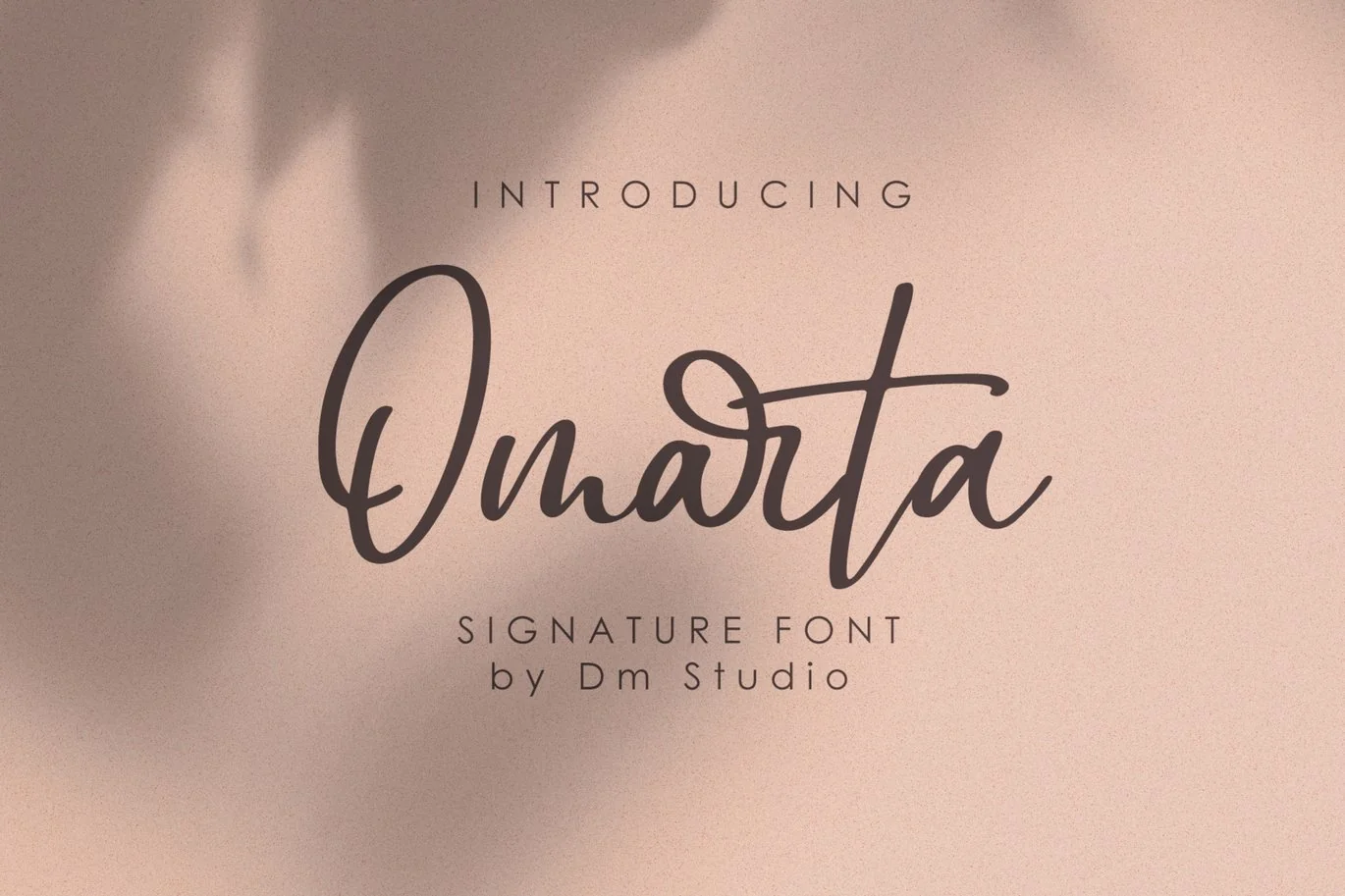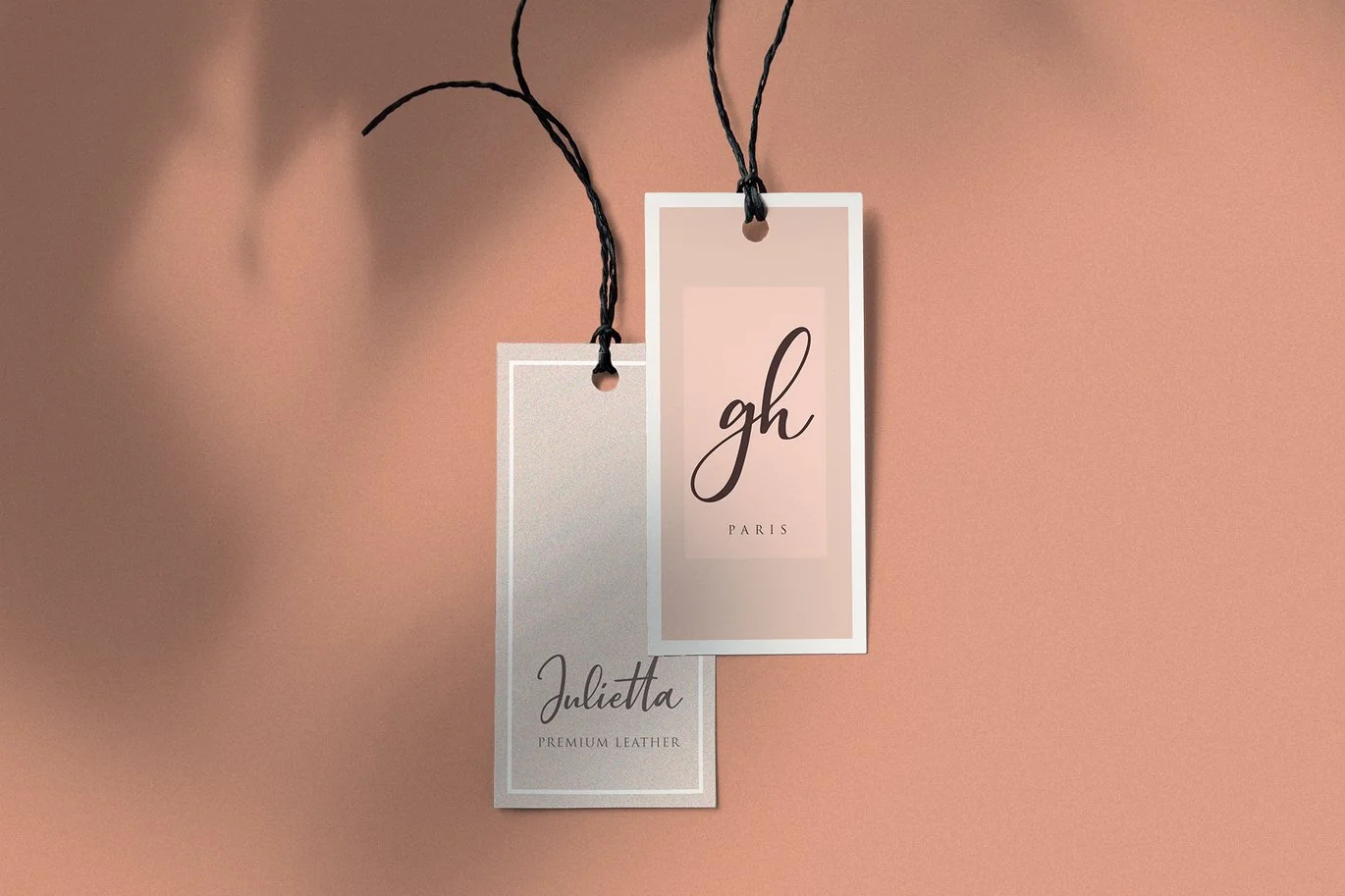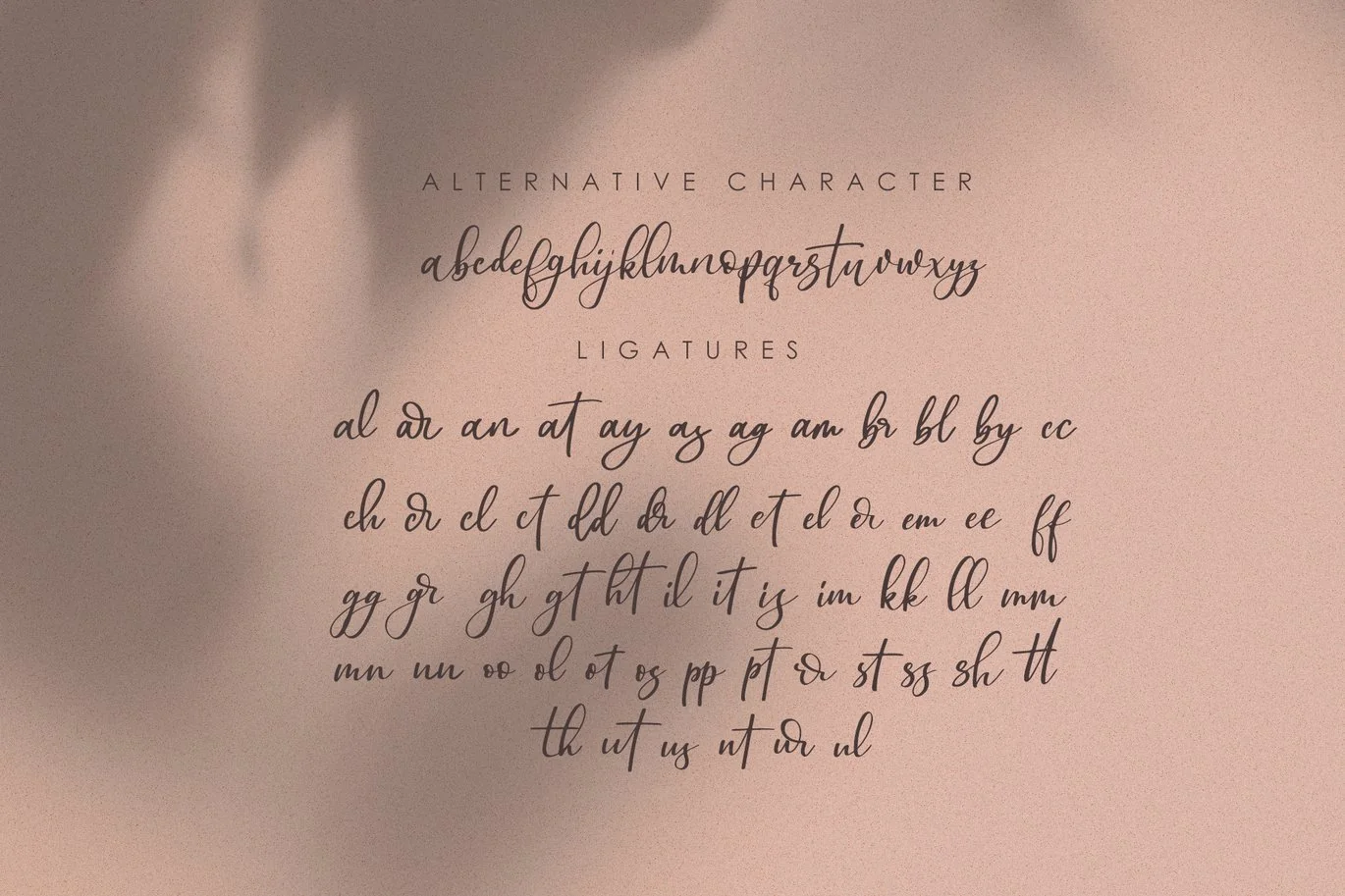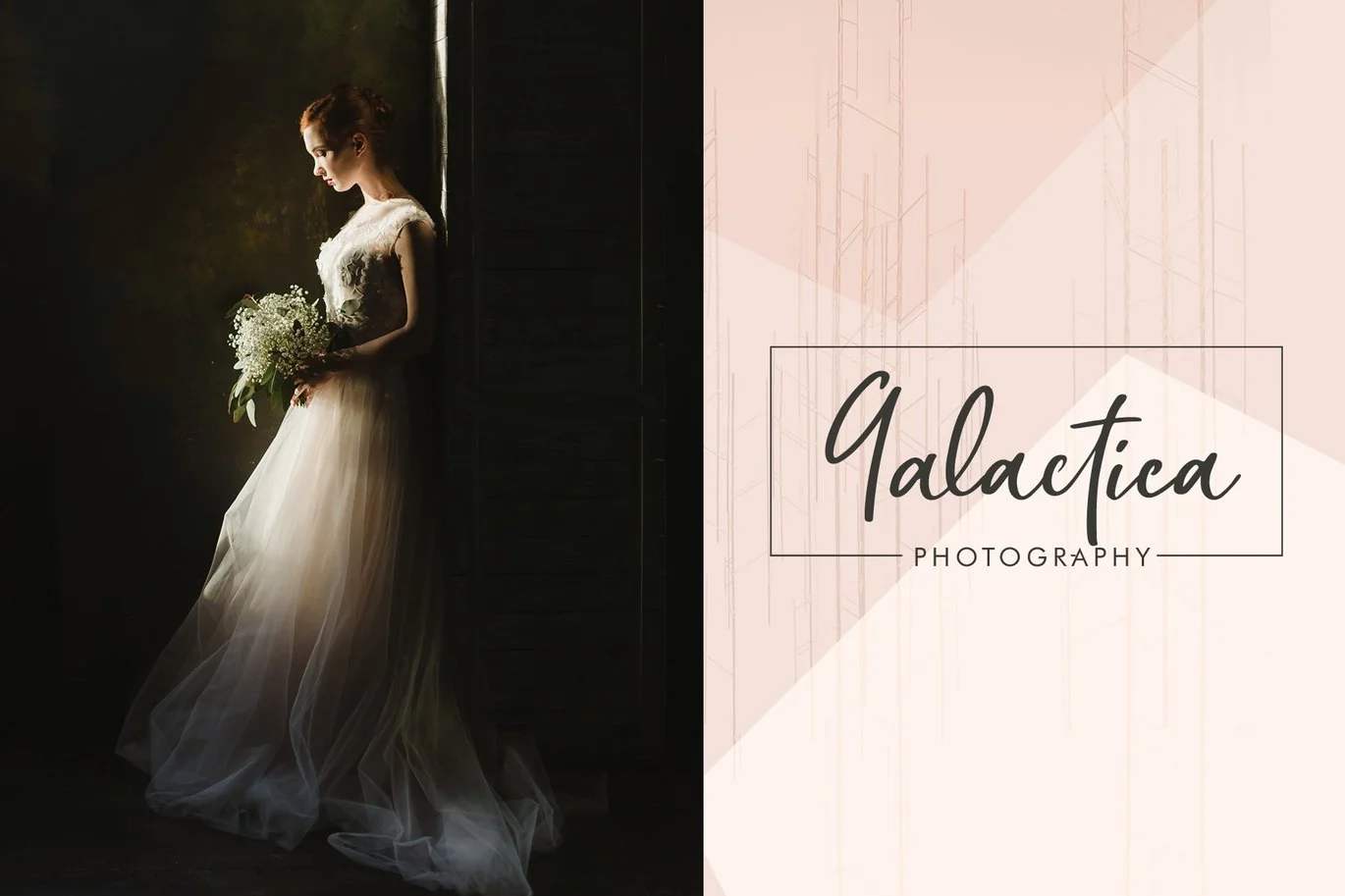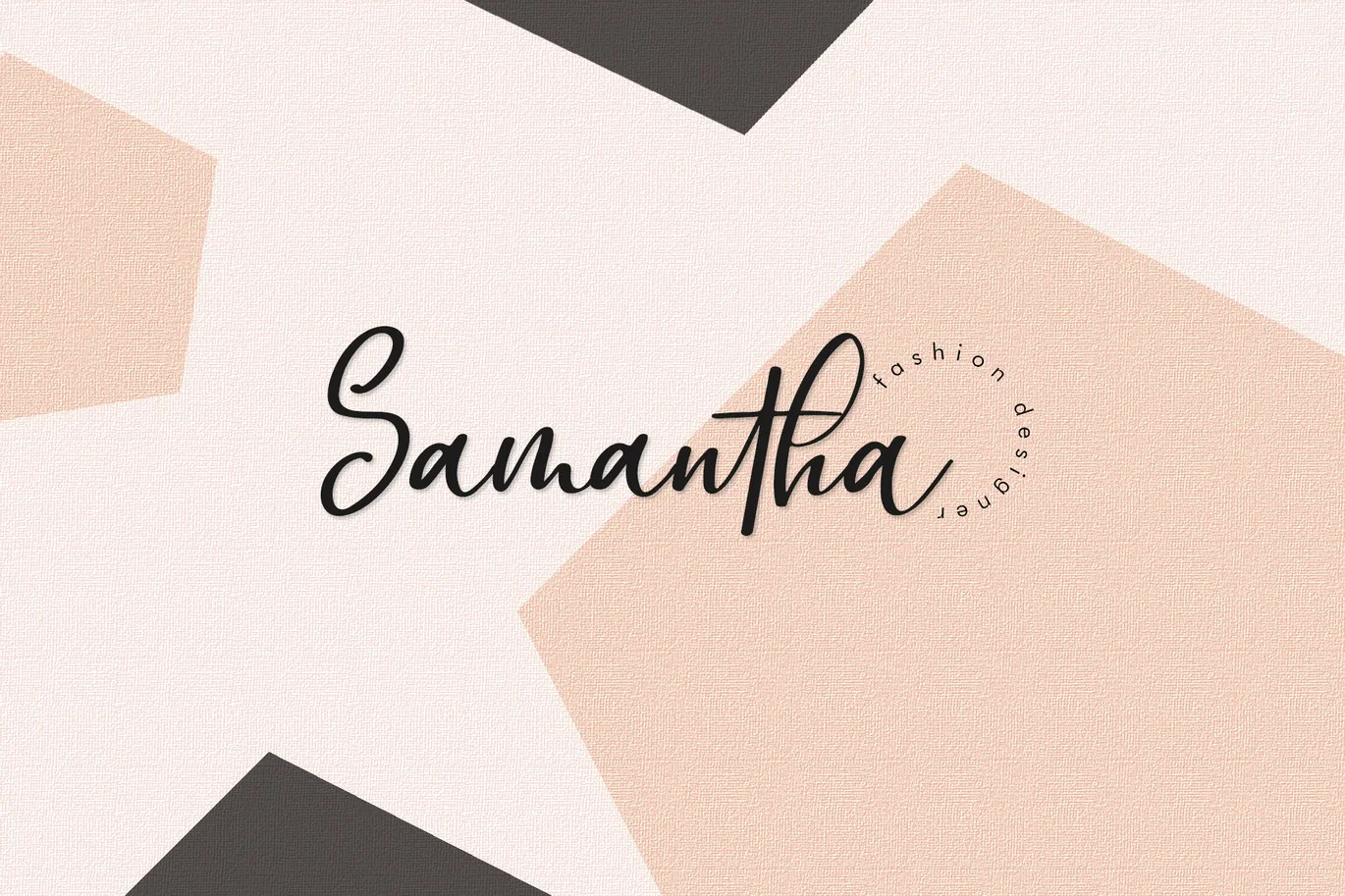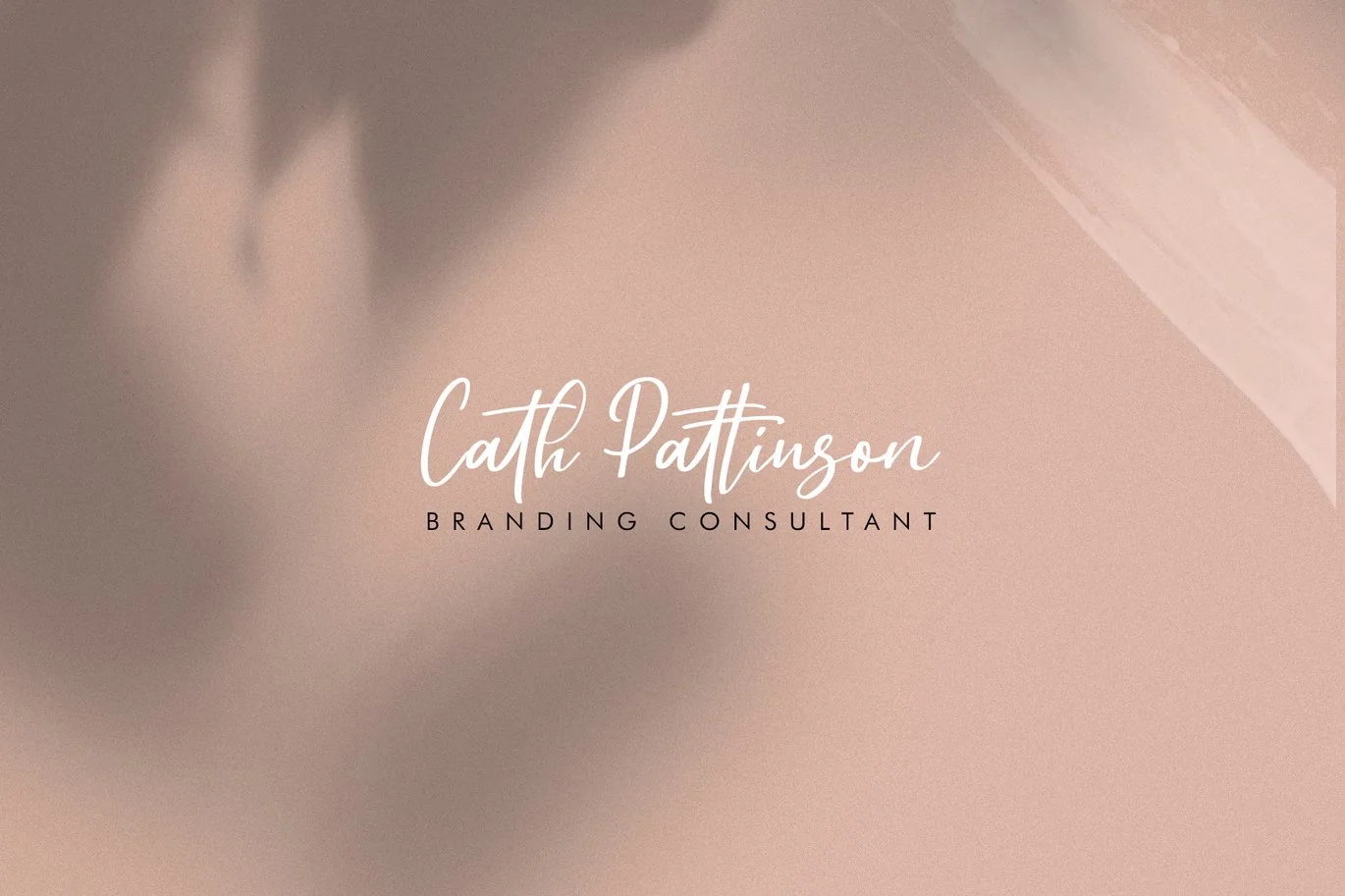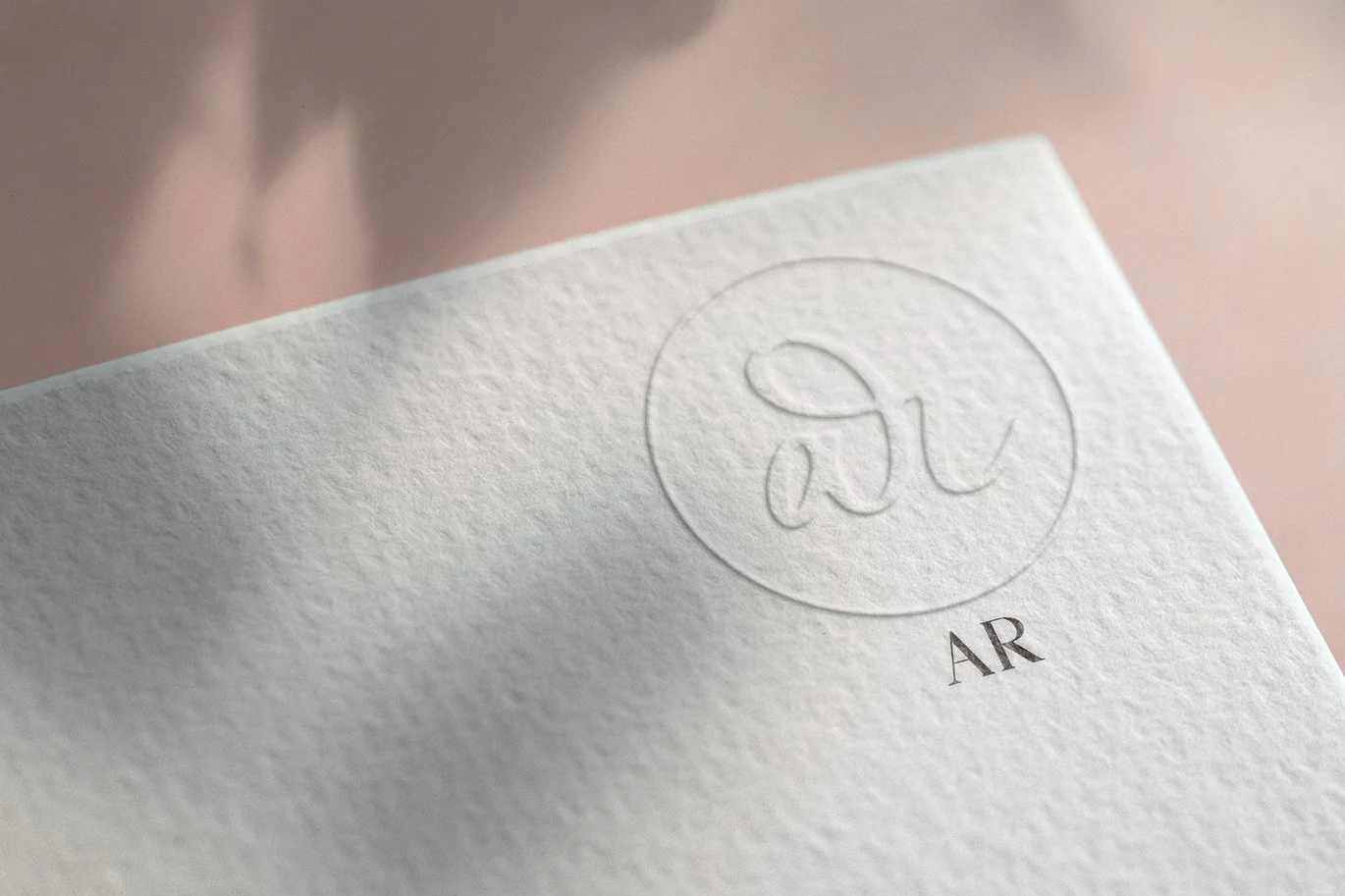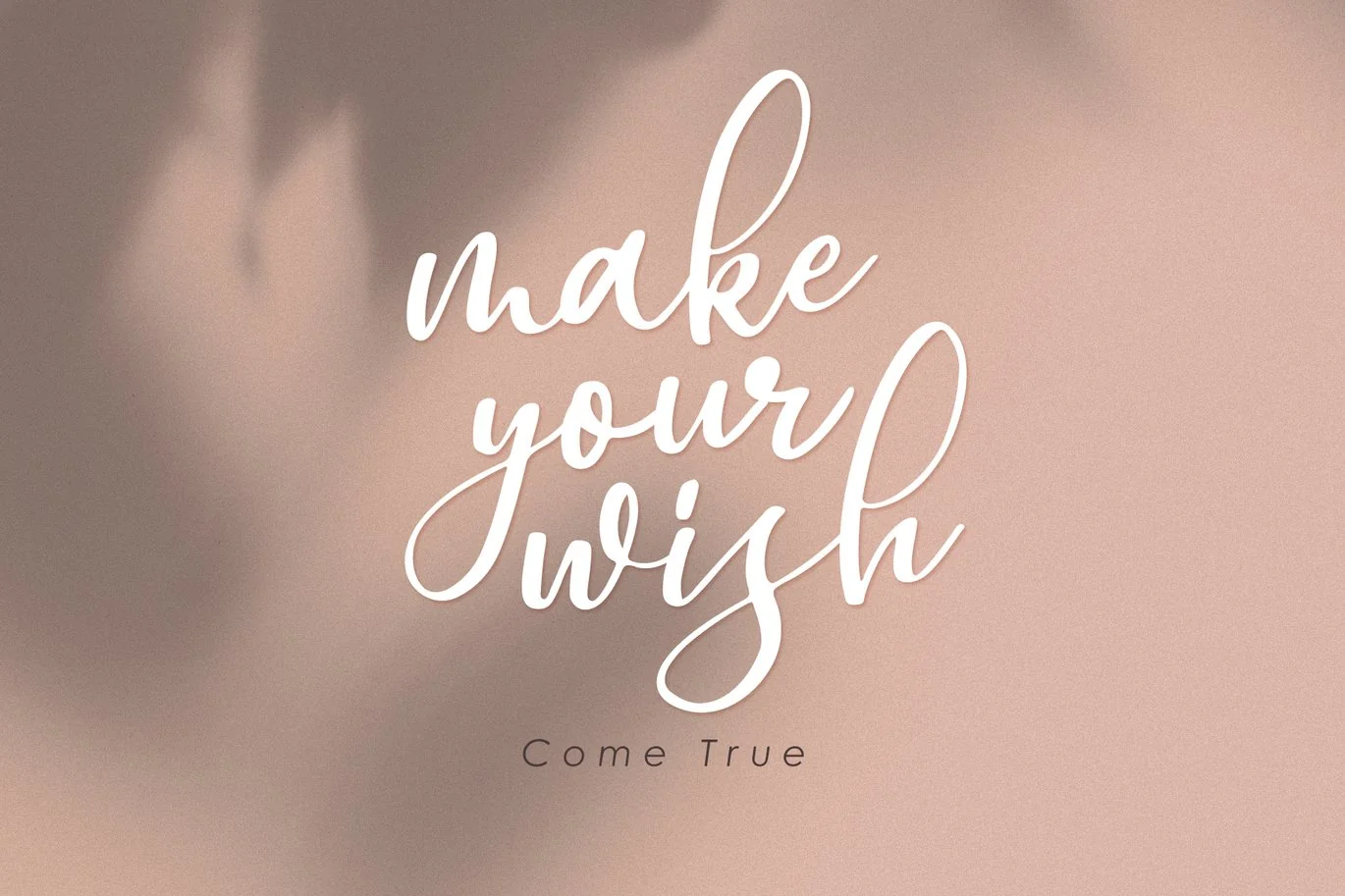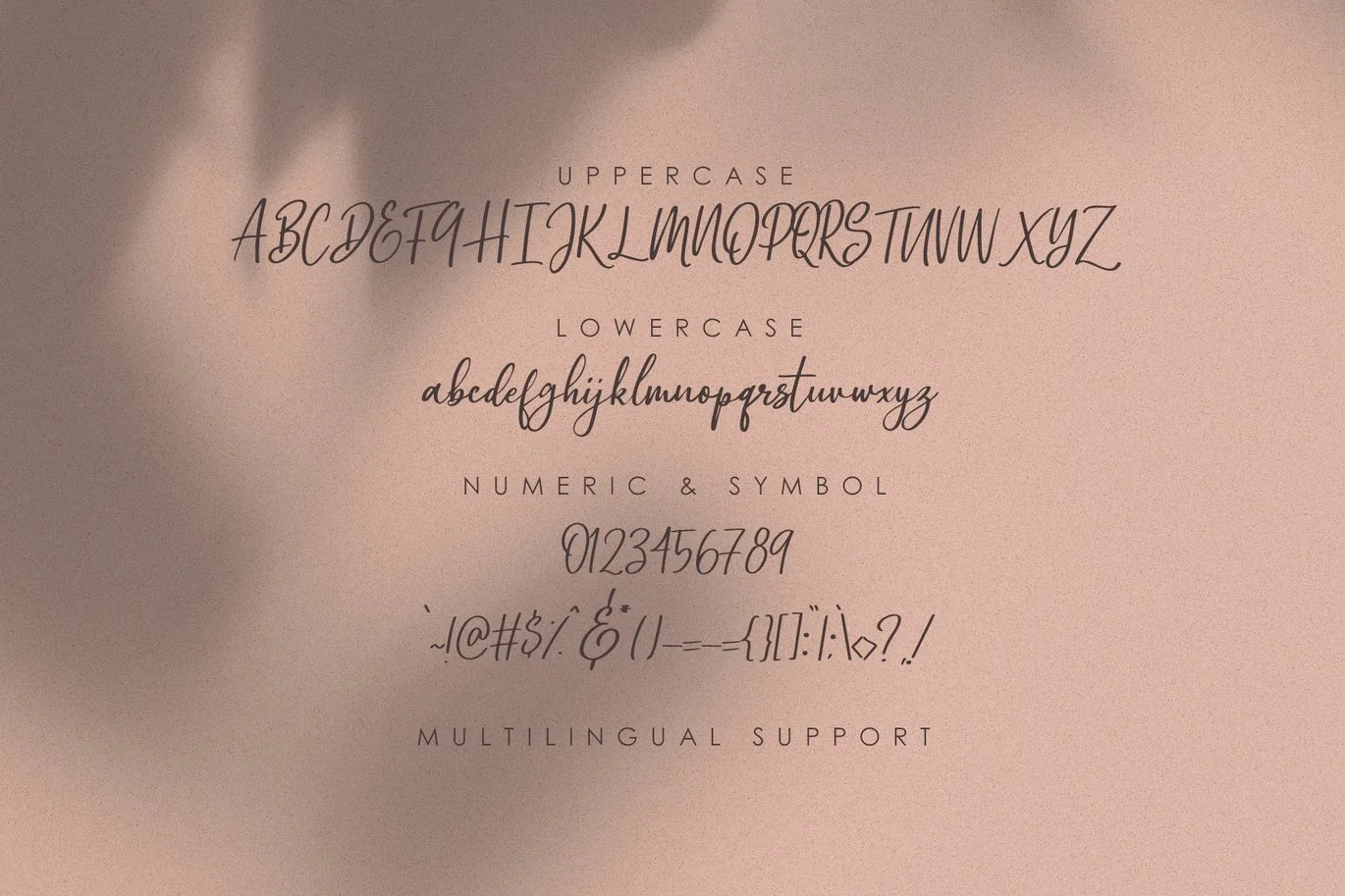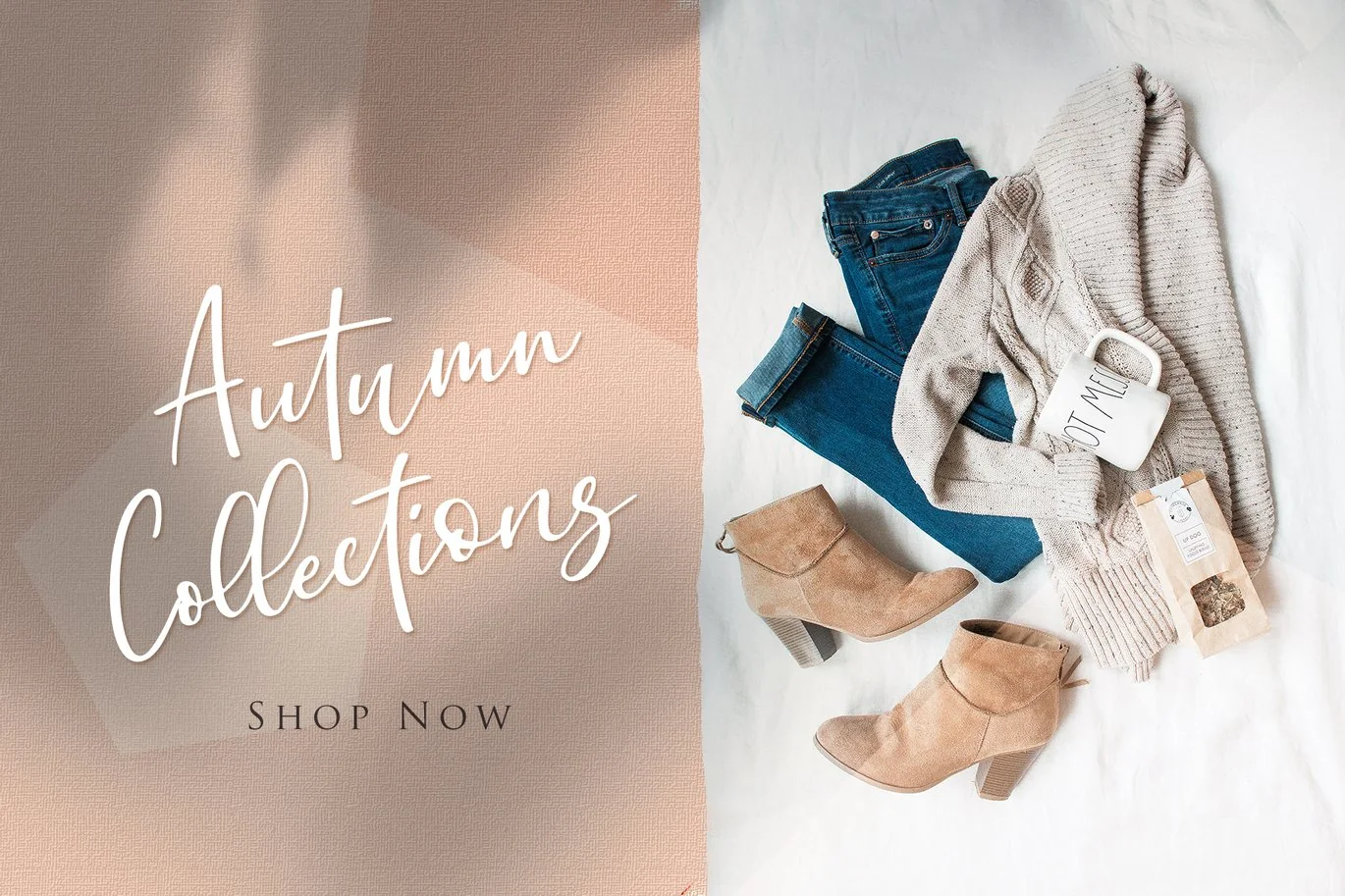
Omarta – Signature Font
inspired with this classy, versatile and beautiful handwritten with a
modern and minimalist style. Great choice for your all seasonal upcoming
projects, crafts, wedding, businness related, or even for your social
media posts.
Highlights :
-Including Uppercase, lowercase, numeric and symbols
-Support multilingual
-Alternative Characters lowercase
-Handwritten Ligatures